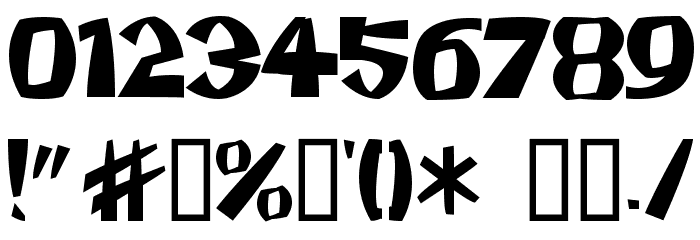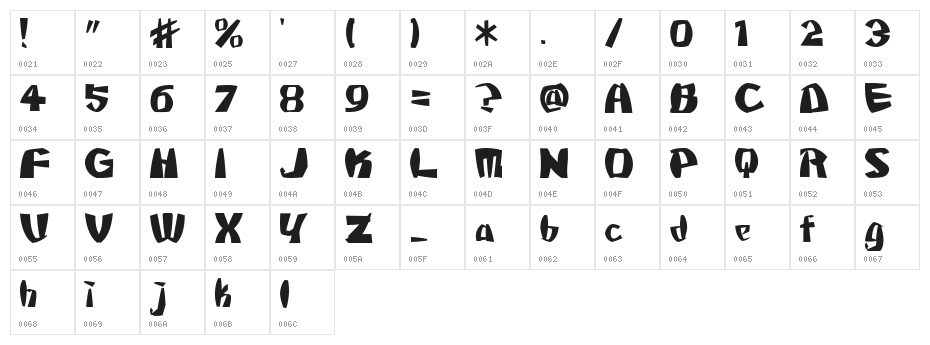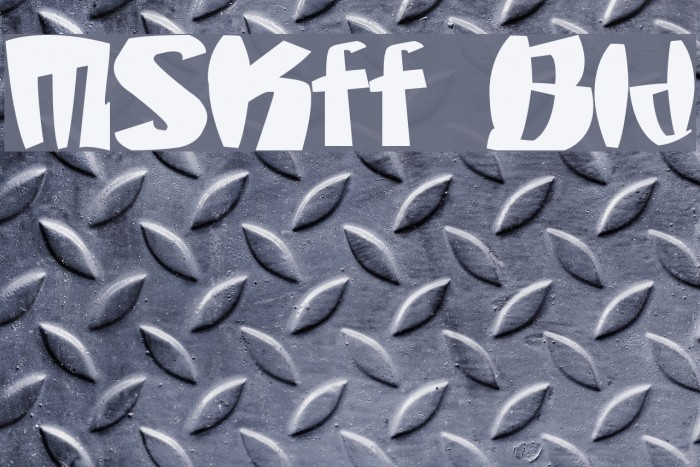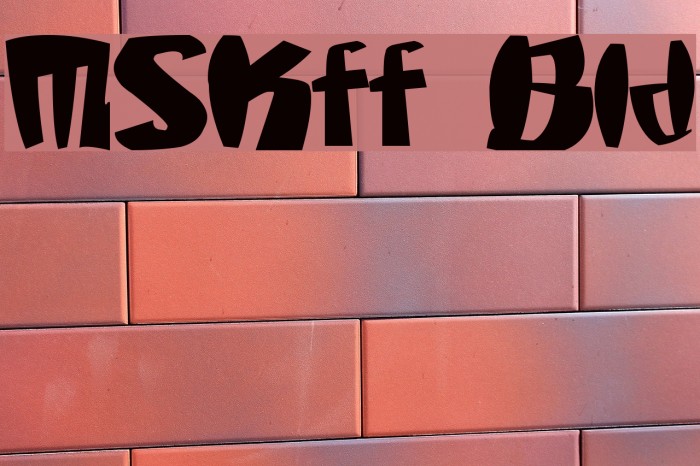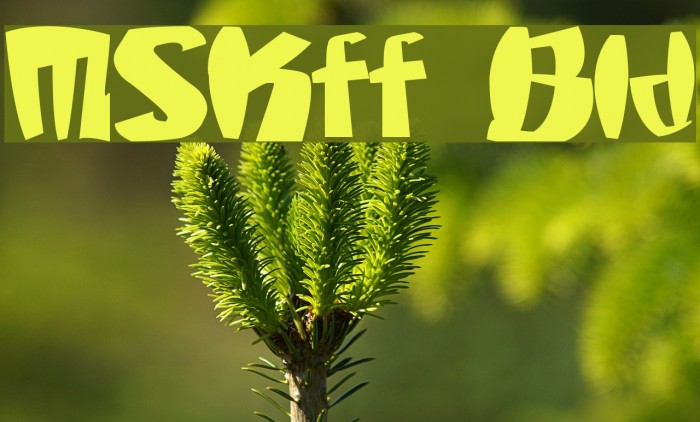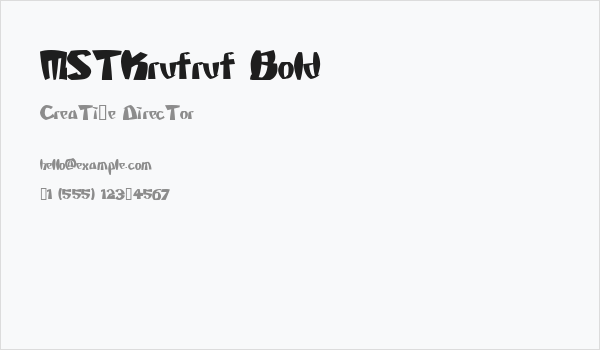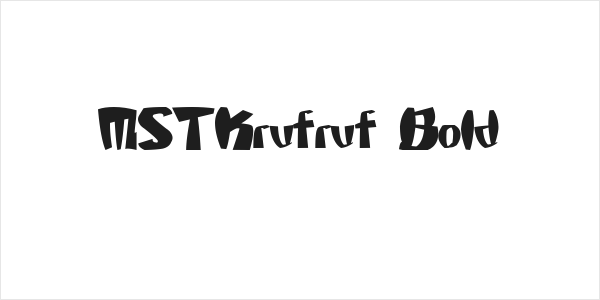
MStKrufruf Bold Font
MStKrufruf Bold Description
This font features a bold and playful design with a distinctly irregular and dynamic appearance. The characters are crafted with varying stroke widths, creating a sense of movement and energy. The uppercase letters are particularly striking, with exaggerated curves and angles that give them a unique, almost whimsical feel. The lowercase letters maintain this playful style, with some characters having unexpected twists and turns. The numbers and special characters follow suit, adding to the overall quirky aesthetic. This font is ideal for projects that require a fun and eye-catching typeface.
| Overall Style | Playful, Whimsical, Dynamic |
| Proposed Projects | Ideal for children's books, playful branding, posters, and creative design projects. |